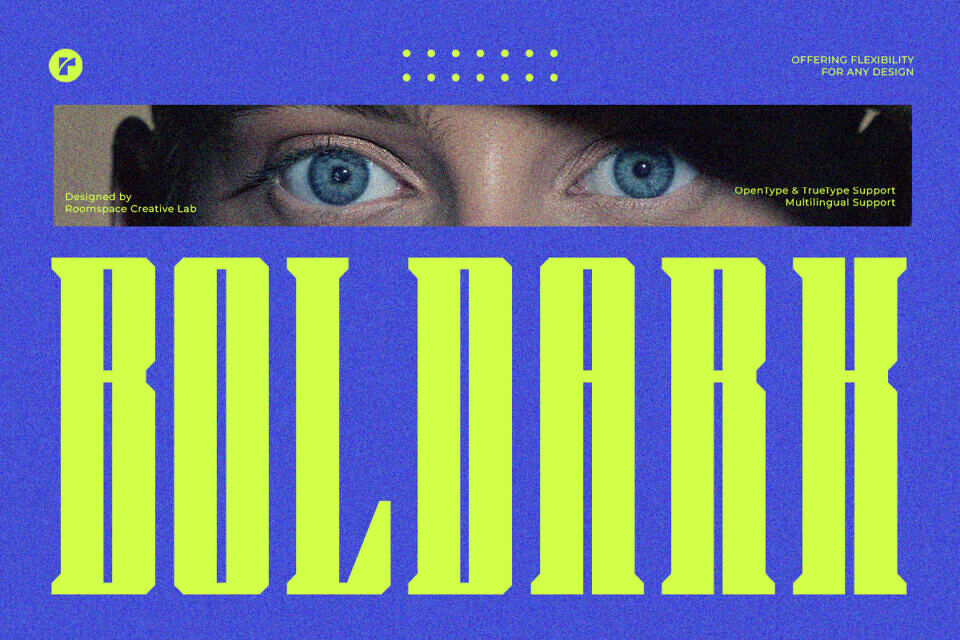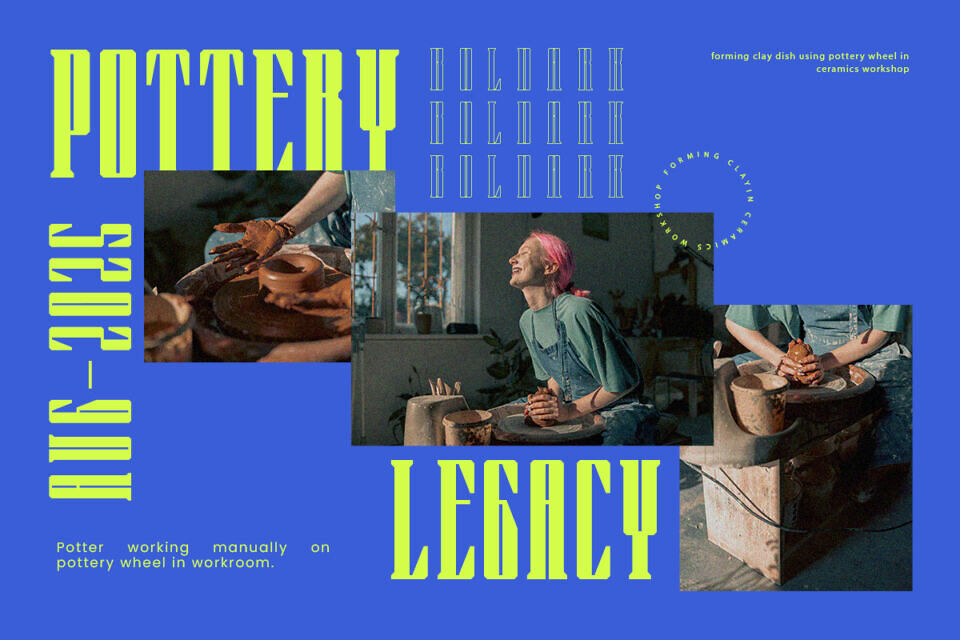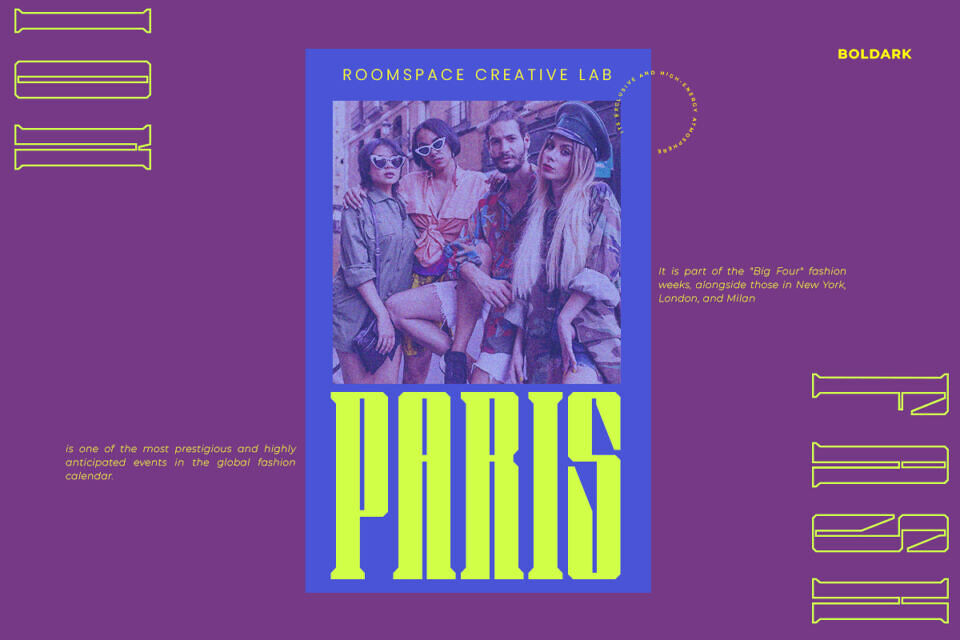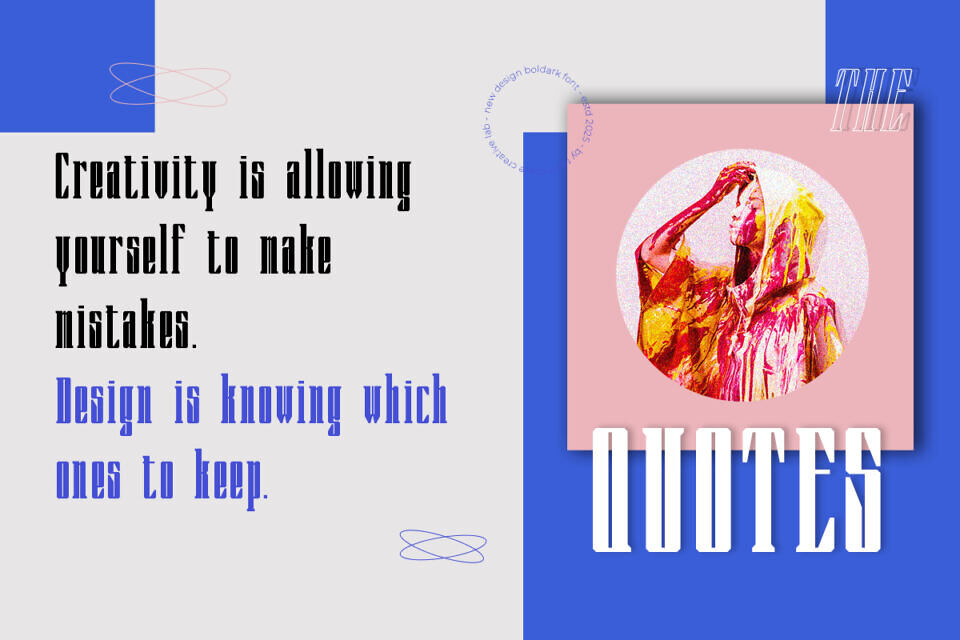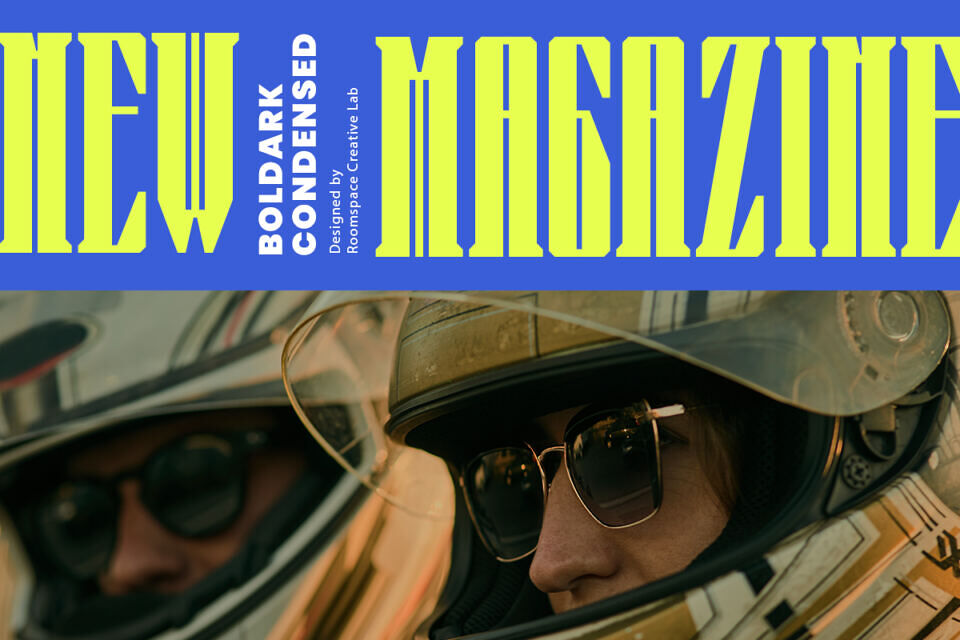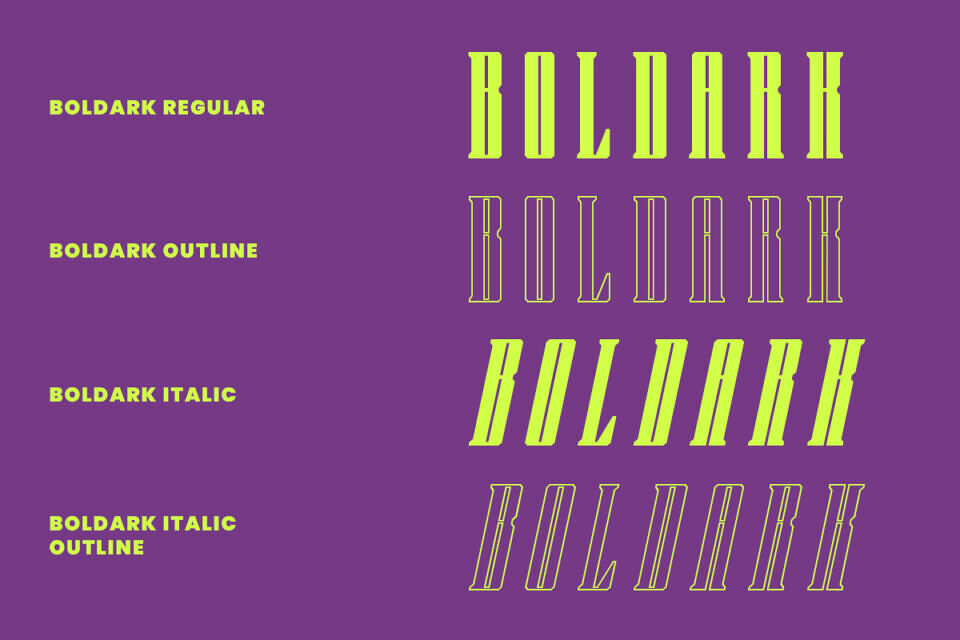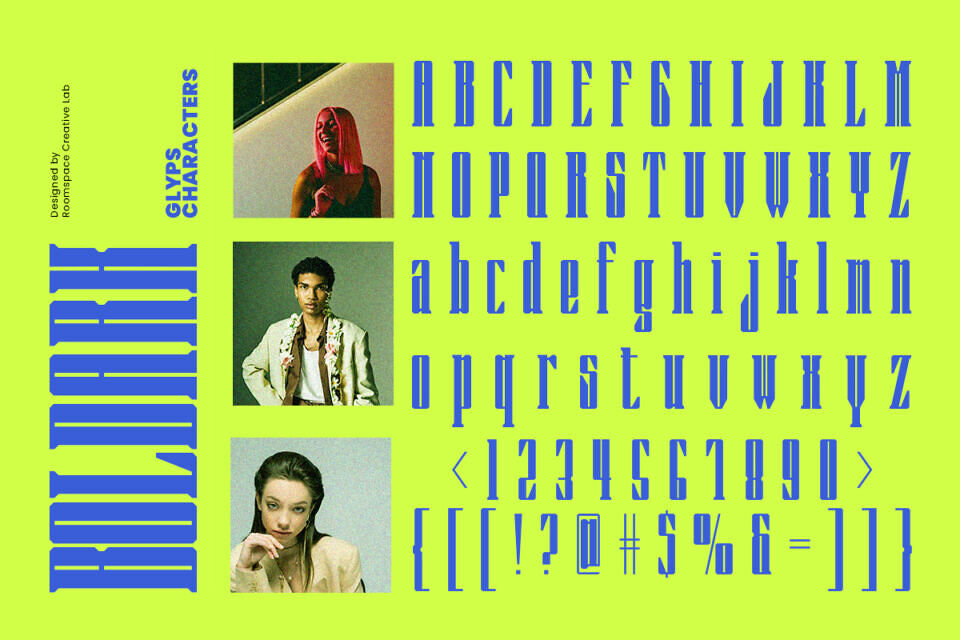
Boldark Font is a meticulously crafted condensed serif typeface designed to capture attention and evoke a sense of sophistication. With its bold, confident lines and narrow proportions, Boldark is the epitome of modern typography fused with a touch of timeless elegance. This font is perfect for designers and businesses aiming to create impactful visual statements, whether for digital or print media.
Boldark’s striking design balances readability and creativity, making it an excellent choice for high-impact headlines, editorial layouts, luxury branding, and advertising campaigns. Its condensed style allows for efficient use of space while retaining a bold presence, making it ideal for large-scale projects such as posters, billboards, and packaging.